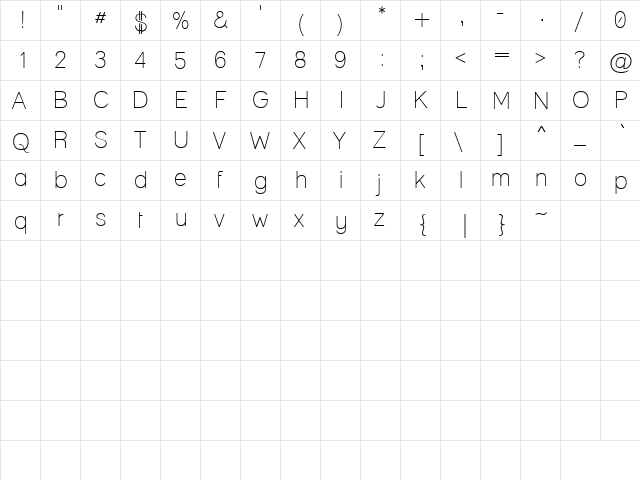
Lane Narrow Light Regular
Design Context for Lane Narrow Light Typeface
Lane Narrow Light takes a measured approach to typography — its balanced proportions and neutral character make it a reliable workhorse for both digital and print work. The delicate stroke weight brings airiness and refinement to layouts. The condensed width makes it efficient for tight spaces without sacrificing legibility.
Pro Tip: Use Lane Narrow Light in both headline and body roles to test its range before committing to a single application.